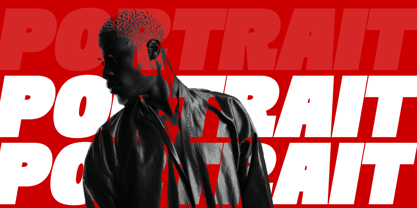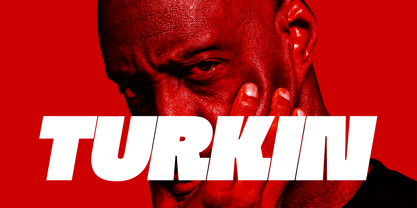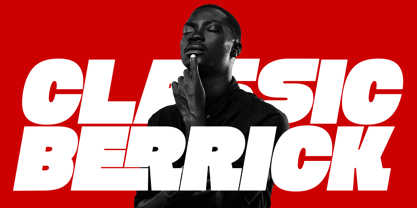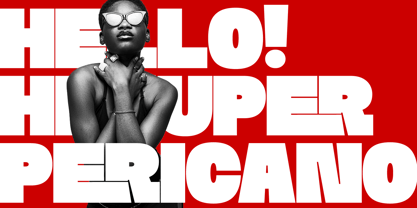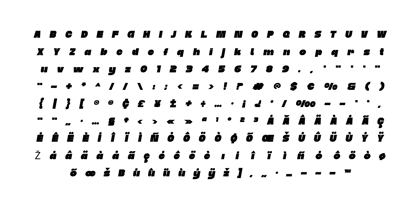
Turkin Display
par FoxType
La famille de polices Turkin Display a été conçue par Evin Tony et publiée par FoxType. Turkin Display contient 2 styles et options de package familial. En savoir plus sur cette famille
Kepler is a powerful bold display typeface crafted to make your brand stand out with confidence. Designed for impactful headlines, striking logos, modern posters, and bold advertising, Kepler delivers a strong visual presence that grabs attention instantly. Its clean yet commanding style makes it the perfect choice for businesses, creative projects, and brand identities that demand boldness and clarity. Created for seamless use across print, digital, and web. Whether you’re creating branding materials, packaging, magazine covers, or social media graphics, Kepler ensures your message is delivered with strength and style.
Concepteurs: Evin Tony
Fonderie: FoxType
Turkin Display